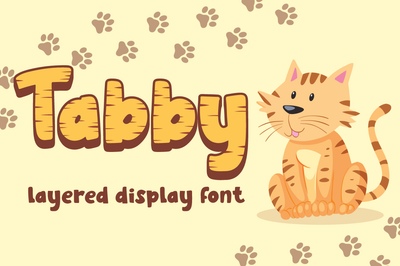
Tabby - Display Font
Tabby is display font inspired by connection about human and cat.
with 3 font style, It's super easy to use 3D effect with Tabby family font.
Three style Font: Regular, Display & Shadow
Tabby perfectly macth for any product like book cover, t-shirt, branding, promotion, social media post, quotes, crafting, photography and more.